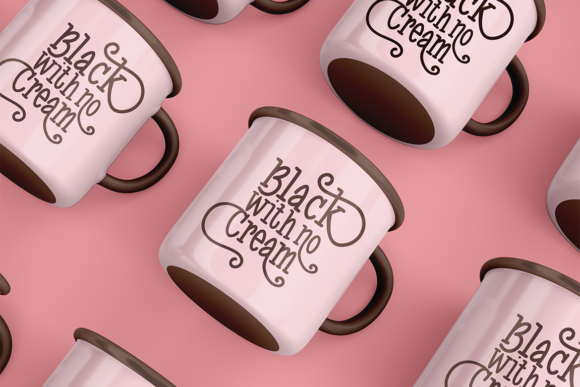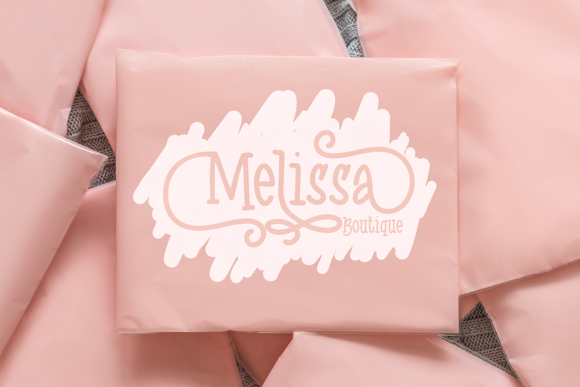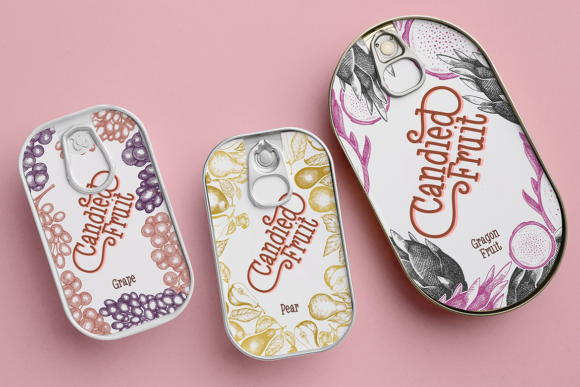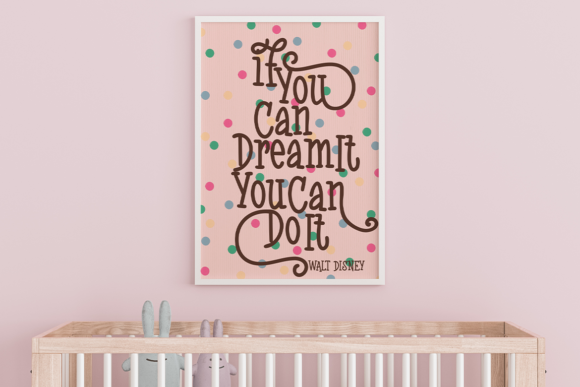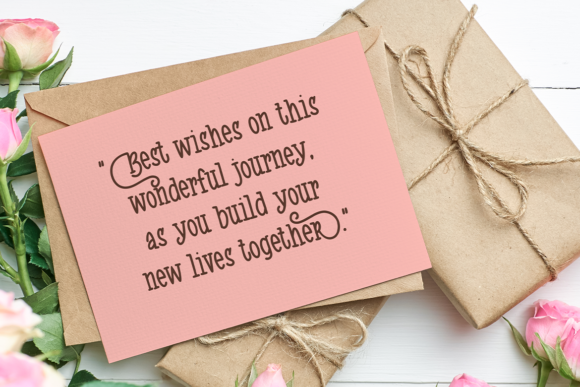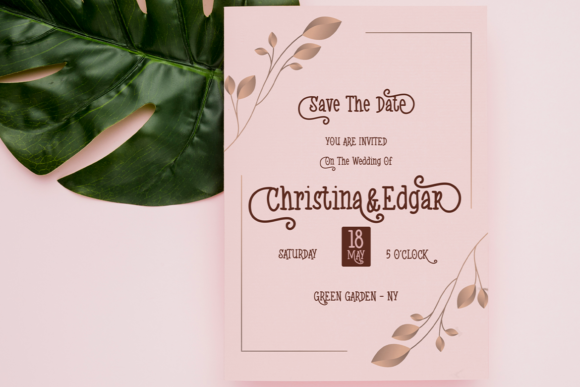
Introduction to Kopitype Font
Remember that moment when you’re working on a design project, and you stumble upon the perfect font that elevates your entire creation? For designers, that ‘aha’ moment is priceless. It’s the spark that ignites creativity and sets your imagination ablaze. That’s exactly what the Kopitype Font offers – a high-quality, whimsical display font that’s perfect for adding a touch of magic to your next design project.
With its PUA encoded feature, accessing all the glyphs and swashes is a breeze, allowing you to get creative with your design resource. Whether you’re working on a graphic design project, a logo, or a digital art piece, the Kopitype Font is an excellent addition to your design toolkit. And the best part? It’s available for free download, making it an accessible design resource for designers of all levels.
So, what sets the Kopitype Font apart from other fonts? Its unique aesthetic and versatility make it an excellent choice for designers who want to add a touch of whimsy to their creative project. Plus, its transparent background allows for seamless integration with any design element, making it a valuable asset for any designer.
Key Features of Kopitype Font
- High-quality design resource perfect for creative projects, available for free download.
- Unique, modern font style with a transparent background, ideal for backgrounds, overlays, and text effects.
- Includes a wide range of characters, including uppercase and lowercase letters, numbers, and special symbols.
- Designed with a high resolution of 300 DPI, suitable for use in various creative projects, including print and digital media.
Honest Review: Kopitype Font
I recently stumbled upon the Kopitype Font, a high-quality design resource that caught my attention. With its sleek and modern aesthetic, I was excited to dive in and explore its features. The Kopitype Font offers a free download, which is a definite plus for designers working on a budget.
- High-quality typography: The Kopitype Font boasts crisp, clean lines and a professional look that’s perfect for creative projects.
- Transparent background: This feature is incredibly useful for designers who want to create custom backgrounds or integrate the font with other design elements.
- Limited customization options: While the Kopitype Font is highly customizable, some designers may find the options to be a bit limited compared to other fonts on the market.
- Not suitable for all design styles: The Kopitype Font is best suited for modern and minimalist designs. It may not be the best fit for more traditional or bold design styles.
Overall, I’m impressed with the Kopitype Font. Its high-quality typography and transparent background make it a valuable resource for designers working on creative projects. While it may have some limitations, I think it’s a great addition to any design library.
Kopitype Font
The Kopitype Font is a high-quality, free design resource that offers a unique and creative touch to your projects. With its transparent background, this font is perfect for use in various design applications.
The Kopitype Font is perfect for use in creative projects such as:
- Posters